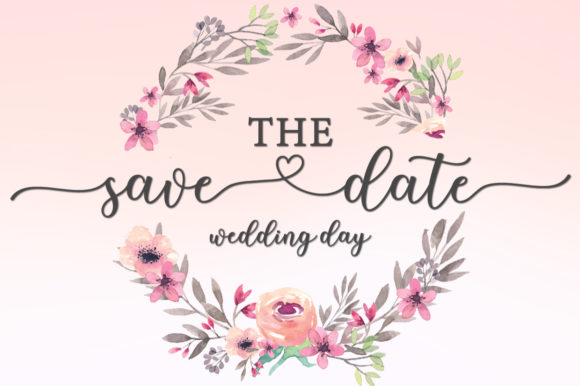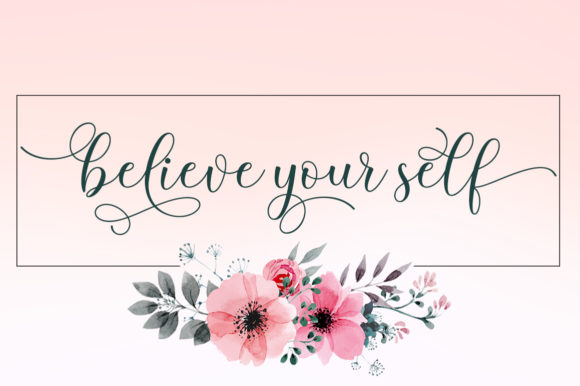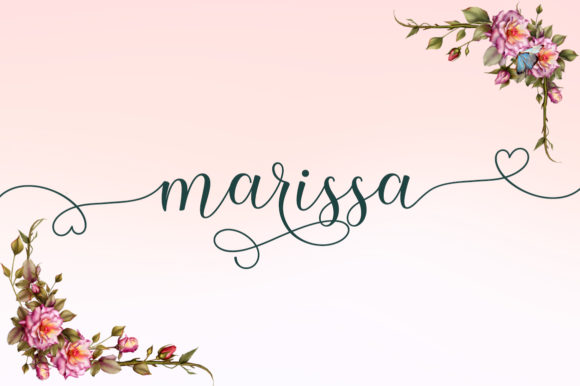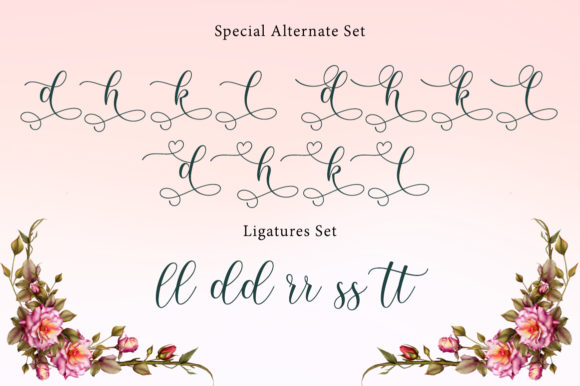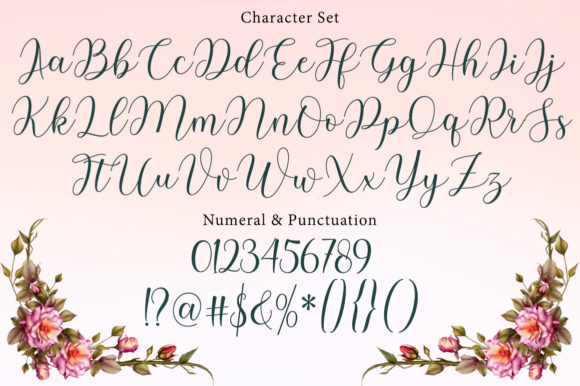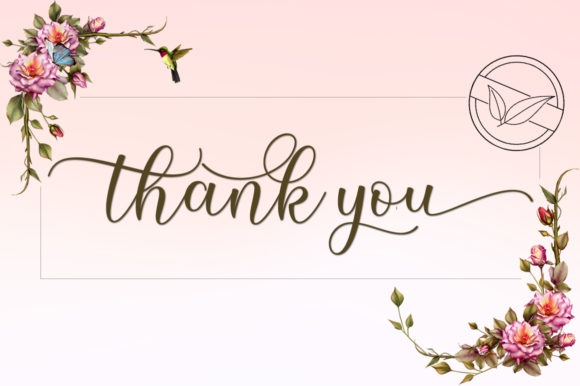
Dasting Font: The Sweet and Soft Hand-Lettered Font for Your Creative Projects
Are you a designer or crafter looking for a unique and beautiful font to add a personal touch to your creations? Look no further than Dasting Font, a sweet and soft hand-lettered font that is sure to capture your heart. With its varying baseline, smooth lines, gorgeous glyphs, and stunning alternates, Dasting Font is the perfect choice for a wide range of creative projects.
What Makes Dasting Font So Special?
Dasting Font is a hand-lettered font that is designed to give your projects a personal and authentic feel. Its sweet and soft appearance makes it perfect for creating gorgeous wedding invitations, beautiful stationary art, eye-catching social media posts, and cute greeting cards. The font features a varying baseline, which gives it a natural and organic look that is sure to stand out.
One of the things that sets Dasting Font apart from other fonts is its smooth lines and gorgeous glyphs. The font is carefully crafted to ensure that every letter and symbol is beautiful and easy to read. The stunning alternates add an extra touch of elegance and sophistication, making Dasting Font perfect for projects where you want to make a lasting impression.
Uses for Dasting Font
Dasting Font is a versatile font that can be used for a wide range of creative projects. Here are just a few ideas to get you started:
- Wedding Invitations: Create beautiful and unique wedding invitations that will set the tone for your special day. Dasting Font is perfect for printing or digital invitations, and can be used to add a personal touch to your wedding stationery.
- Stationary Art: Use Dasting Font to create beautiful stationary art that is perfect for gift-giving or personal use. From notecards to journals, Dasting Font adds a touch of elegance and sophistication to any project.
- Social Media Posts: Make your social media posts stand out with Dasting Font. Whether you’re creating graphics for Instagram, Facebook, or Twitter, Dasting Font is sure to grab attention and leave a lasting impression.
- Greeting Cards: Create cute and personalized greeting cards for any occasion. Dasting Font is perfect for birthdays, holidays, and other special events.
- Experiment with Different Sizes: Dasting Font looks great in a variety of sizes, from small and delicate to large and bold. Experiment with different sizes to find the perfect fit for your project.
- Pair with Other Fonts: Dasting Font pairs well with other fonts, especially serif and sans-serif fonts. Try pairing it with a bold font for a striking contrast, or with a script font for a more elegant look.
- Use Alternates: Don’t be afraid to use the stunning alternates that come with Dasting Font. They add an extra touch of elegance and sophistication to your project, and can help to create a unique and personalized look.
Dasting Font is a beautiful and versatile hand-lettered font that is perfect for a wide range of creative projects. With its sweet and soft appearance, varying baseline, smooth lines, gorgeous glyphs, and stunning alternates, Dasting Font is sure to capture your heart. Whether you’re a designer or crafter, Dasting Font is a great choice for adding a personal touch to your creations. So why wait? Fall in love with Dasting Font and start creating gorgeous projects today!
- Sweet and soft hand-lettered font
- Varying baseline for a natural and organic look
- Smooth lines and gorgeous glyphs
- Stunning alternates for added elegance and sophistication
- Perfect for wedding invitations, stationary art, social media posts, and greeting cards